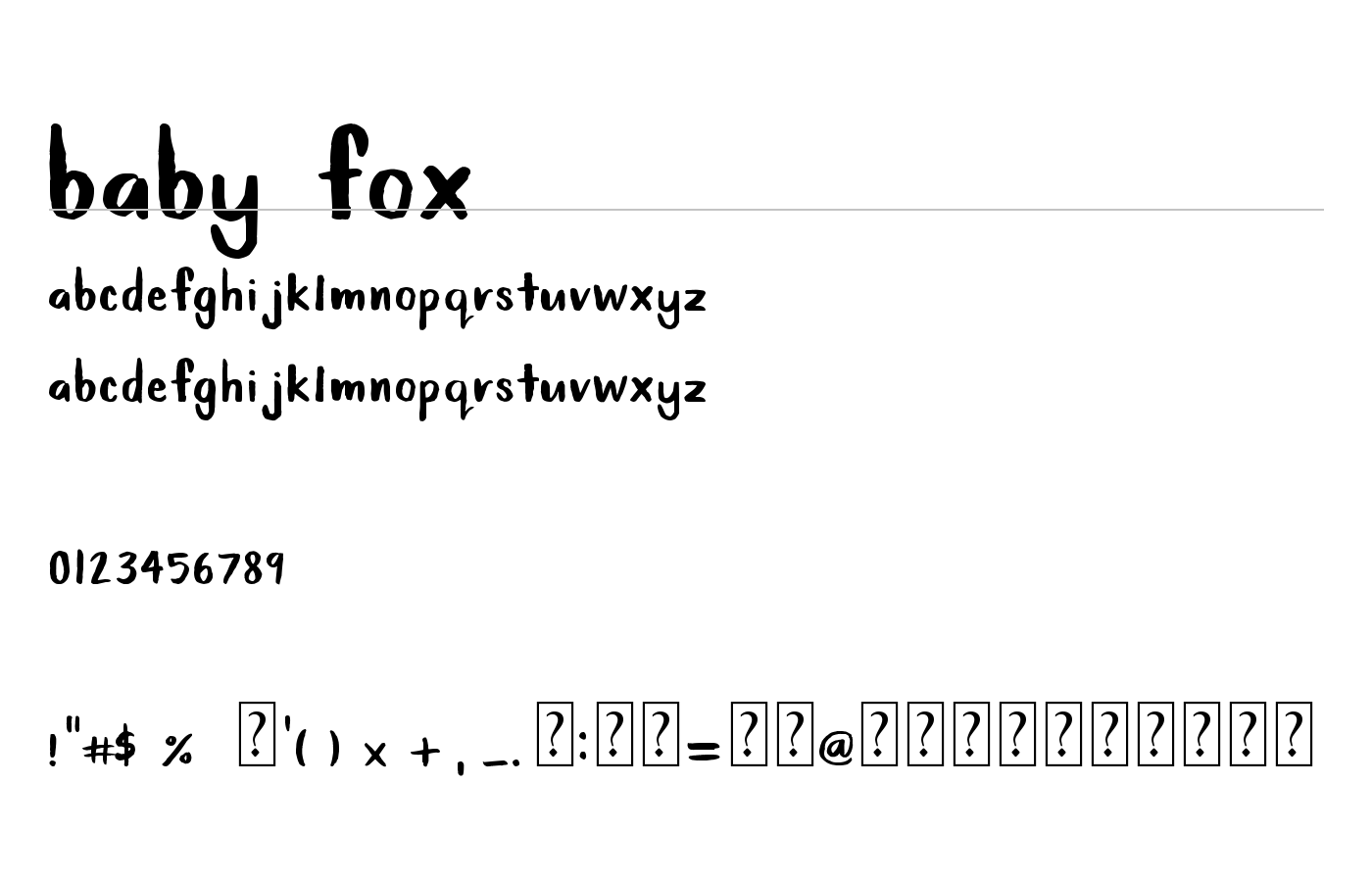
Baby Fox is a playful, hand-drawn sans serif font with a whimsical and casual feel. Its uneven strokes and slightly irregular shapes give it a charming, childlike personality, making it perfect for creative projects, children's books, and informal branding that aims for a friendly, approachable vibe. This font works best in headlines, logos, and packaging where a warm, handcrafted touch is desired.
Baby Fox Font
About Baby Fox Font